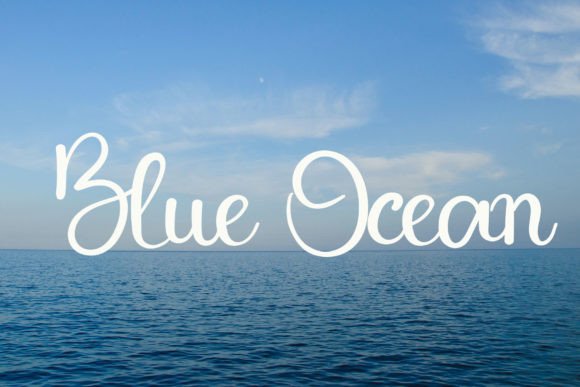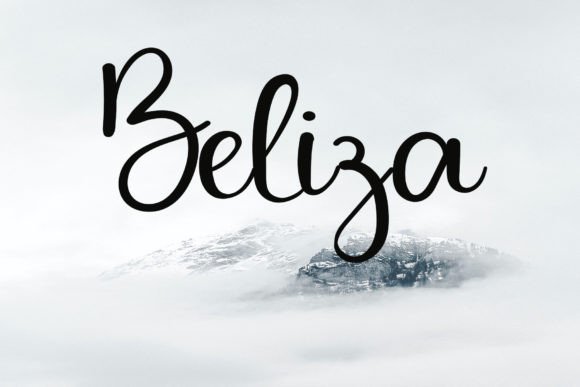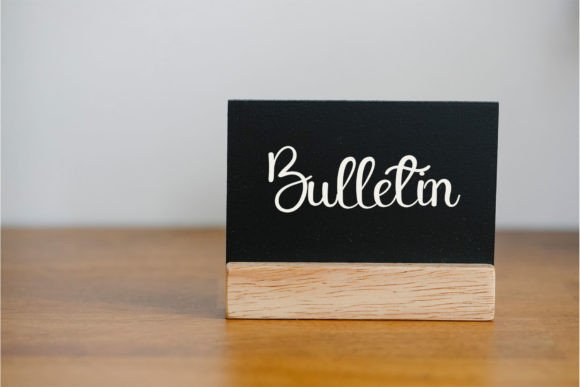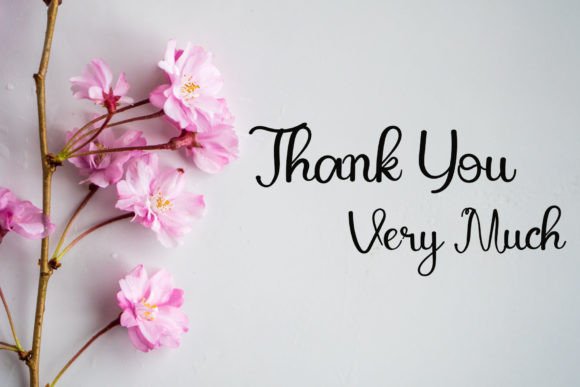
Angel Font
“Angel” is a sweet and beautiful handwritten font, characterized by characters that gracefully dance along the baseline. This font is crafted to add a touch of luxury and elegance to any design project you wish to create.
The handwritten charm of Angel brings a personal and authentic feel to your designs. The characters’ graceful movements along the baseline contribute to a sense of fluidity and sophistication. This font is versatile, suitable for a range of applications, including branding, invitations, posters, and more.
One notable feature of Angel is its ability to add a luxury spark to your designs. The font’s aesthetic appeal is enhanced by its handwritten style, providing a unique and upscale touch. Whether you’re creating elegant invitations or luxurious branding materials, Angel has the potential to elevate your projects with a sense of refinement.
Incorporate Angel into your design toolkit to witness how it adds a touch of luxury and sweetness to your creations. Let it be the font that brings an extra layer of elegance, making your designs stand out and leaving a lasting impression on your audience. With its sweet and beautiful characteristics, Angel becomes a valuable asset in creating visually appealing and sophisticated design projects.